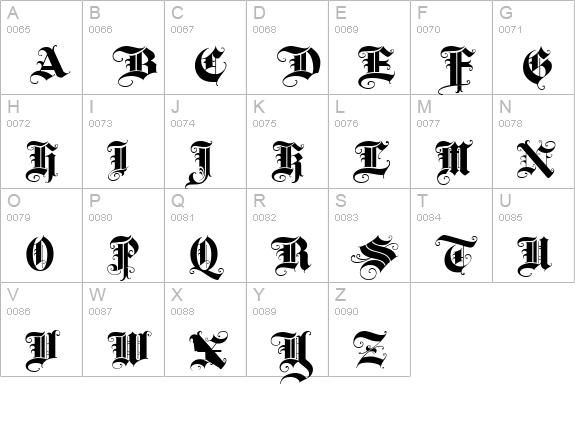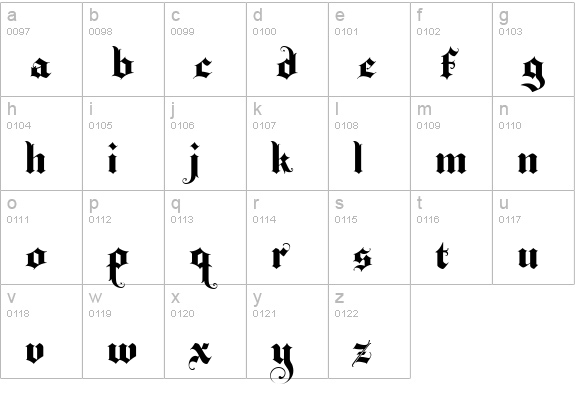
BaroqueTextJF is a stunning and elegant font that exudes grandeur and sophistication. With its intricate details and ornate design, this font is perfect for adding a touch of luxury to your projects. The elaborate swirls and curves of BaroqueTextJF evoke a sense of opulence and refinement, making it ideal for use in invitations, branding, and other high-end designs. What sets BaroqueTextJF apart is not only its exquisite craftsmanship but also the fact that it is available for free. That's right, you can download this exquisite font for no charge at FontsMarket.com. Whether you're a designer looking to elevate your work or someone in need of a touch of elegance for a special project, BaroqueTextJF is the perfect choice. Download it today and add a touch of Baroque-inspired beauty to your designs.